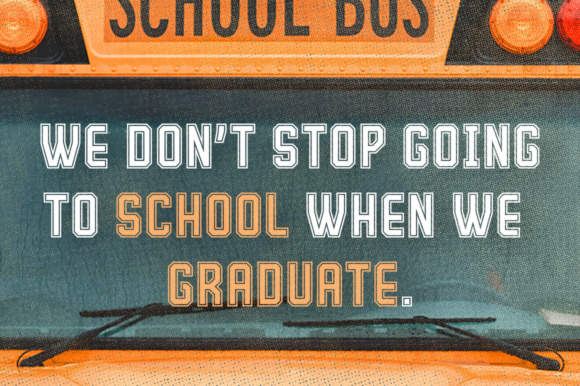
Introduction to Keep Learning Font
Do you remember that moment when you finally nailed a tricky design project, and everything came together in perfect harmony? The rush of excitement, the sense of accomplishment, and the satisfaction of seeing your creative vision come to life – it’s a feeling that never gets old. And for designers, it’s all about finding the right tools to bring our ideas to life. That’s where the Keep Learning Font comes in – a fun, sporty display font that’s perfect for academic or athletic oriented projects.
With its blocky, outlined design, this font is a great way to add a decorative yet restrained feel to your creative projects. Whether you’re working on a high-quality design resource or just need a free download to spice up your next project, the Keep Learning Font is a valuable addition to any designer’s toolkit. Its transparent background makes it easy to layer with other design elements, giving you endless possibilities for creative expression.
Key Features of Keep Learning Font
- High-quality design: This font features high-quality typography, perfect for adding a professional touch to your design.
- Transparent background: The font has a transparent background, allowing for seamless integration with your design project.
- High-resolution design: The font is designed at a high resolution (300 DPI), making it suitable for both digital and print projects.
- Unique characteristics: The Keep Learning Font features a unique, modern design with clean lines and a friendly feel, making it perfect for creative projects.
- Perfect for digital and print projects: The font’s versatility makes it ideal for use in both digital and print projects, from logos to signage and beyond.
Honest Review: Keep Learning Font
As a designer, I’m always on the lookout for high-quality design resources to enhance my creative projects. The Keep Learning Font caught my attention, and I was eager to give it a try.
- High-quality typography: The font is crisp and clear, making it perfect for digital designs.
- Transparent background: This feature allows for seamless integration with other design elements.
- Limited character set: The font only includes a limited set of characters, which might not be suitable for projects requiring extensive typography.
- No bold or italic variations: While the font is clean and elegant, it would be great to have additional weight and style options.
Overall, I’m impressed with the Keep Learning Font. Its high quality and transparent background make it a great addition to any design resource collection. While it has some limitations, it’s still a valuable tool for designers working on creative projects.
For optimal results, use the Keep Learning Font with a transparent background to create a clean and modern design. Experiment with different font sizes, colors, and combinations to add visual interest to your project.
The Keep Learning Font is ideal for educational materials, marketing campaigns, and creative projects that require a friendly and approachable tone. Use it for headings, subheadings, or body text to add a professional touch to your design.